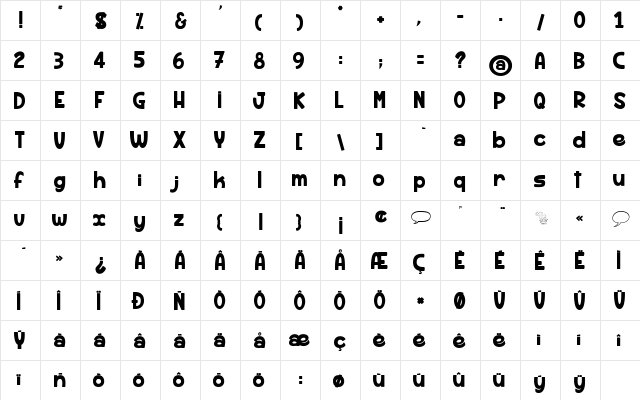
Rhum Banane Regular
| Foundry | dcoxy Medina Gregory |
| Designer | dcoxy Medina Gregory |
Design Context for Rhum Banane Typeface
Rhum Banane takes a measured approach to typography — its balanced proportions and neutral character make it a reliable workhorse for both digital and print work.